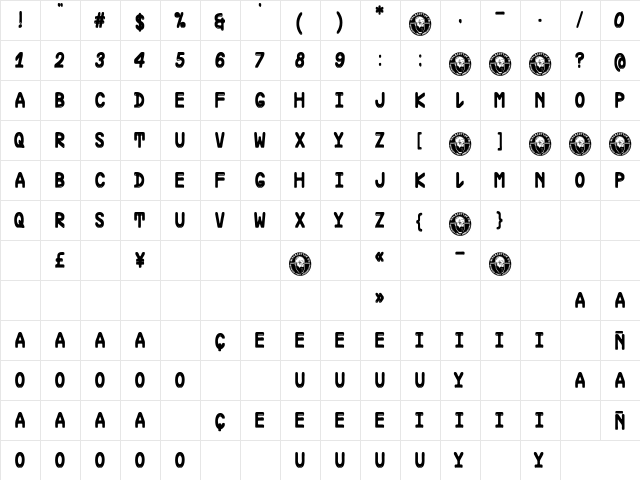
Soccer Team Regular
Design Context for Soccer Team Typeface
Soccer Team is a composed and adaptable typeface that performs quietly and consistently across a wide range of design contexts.